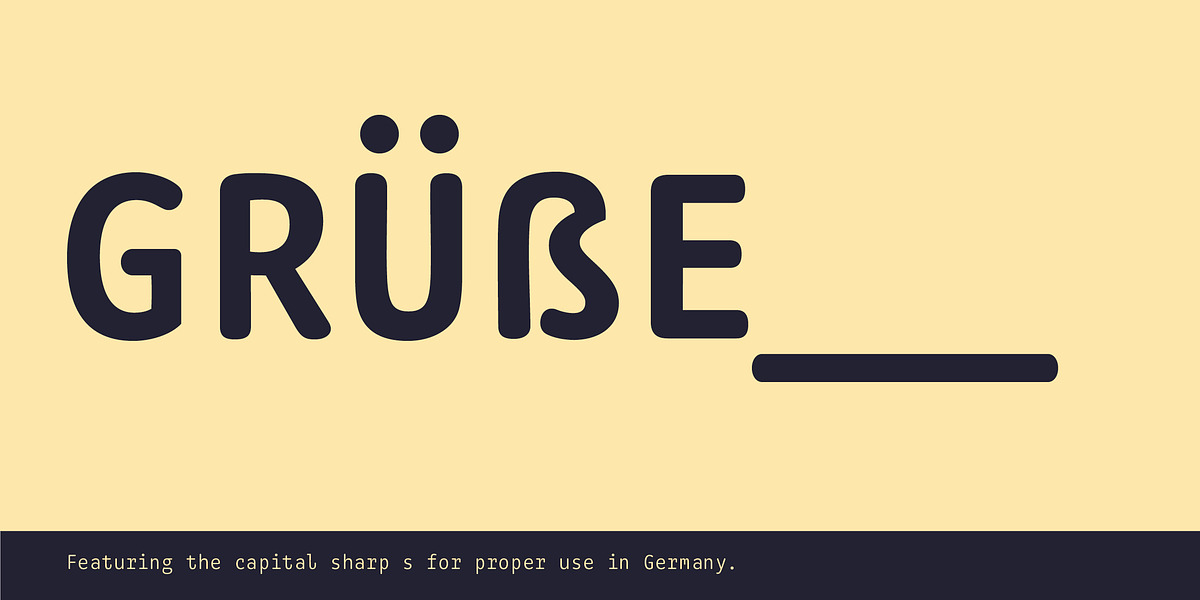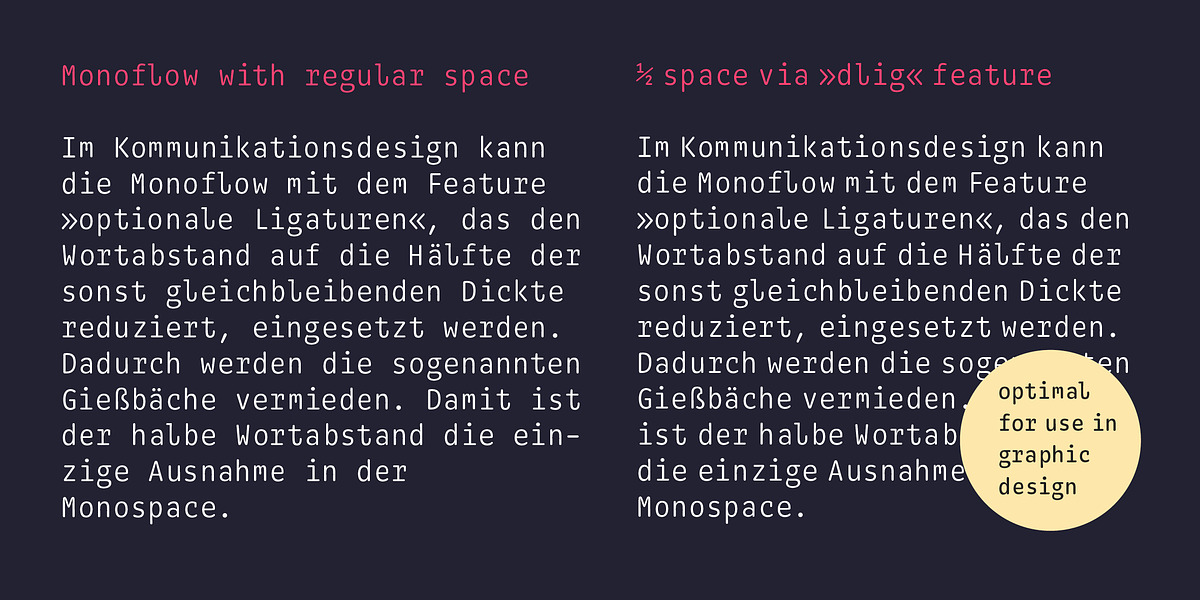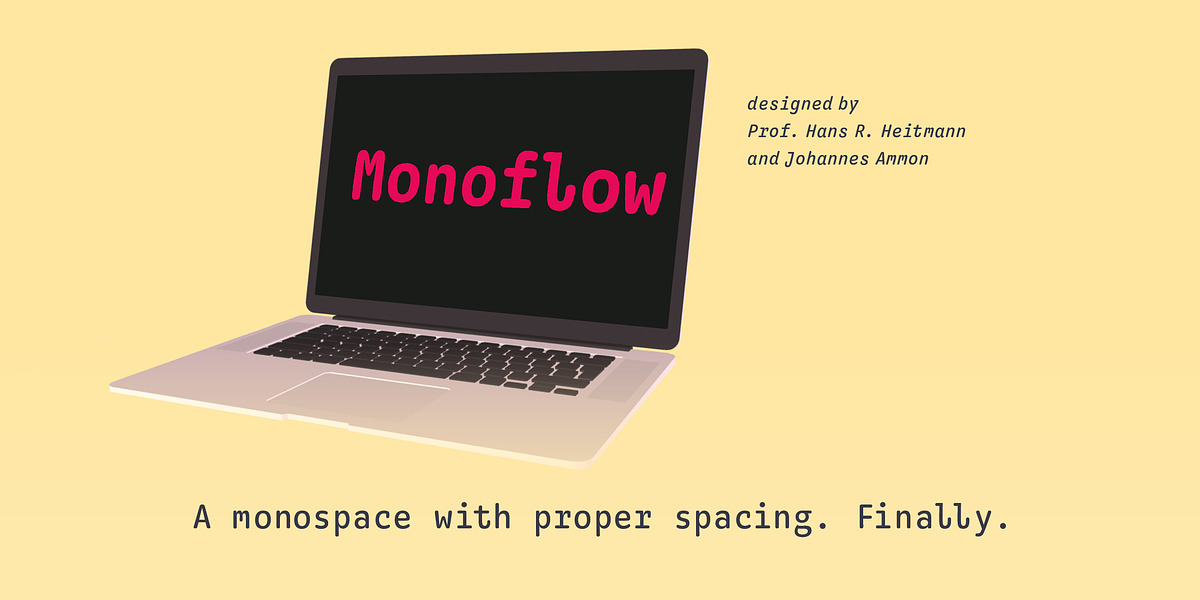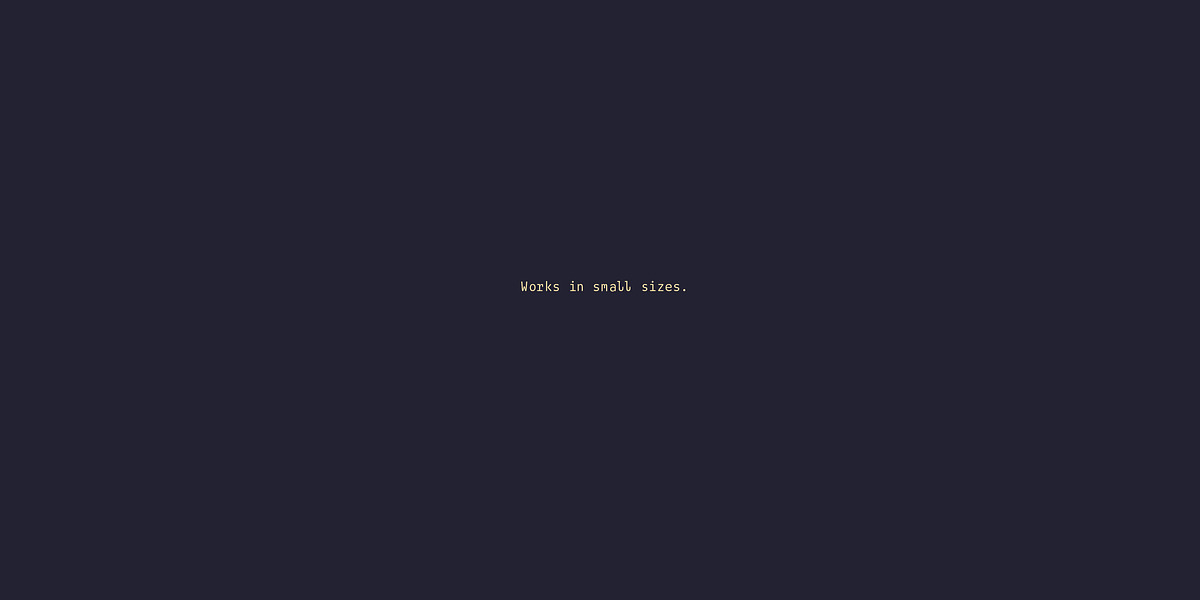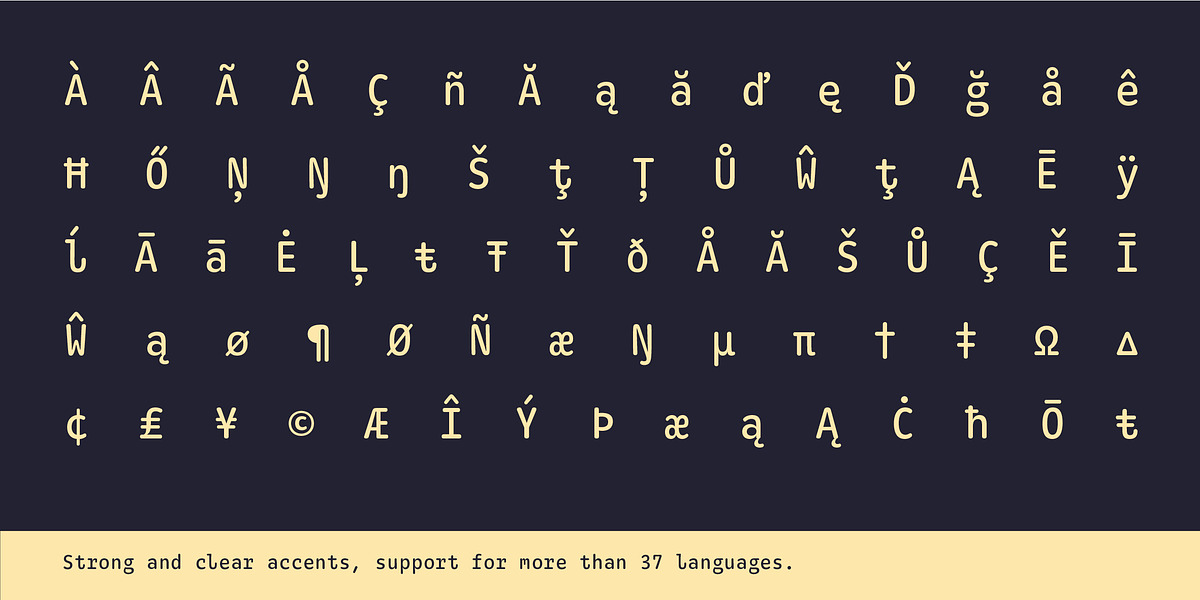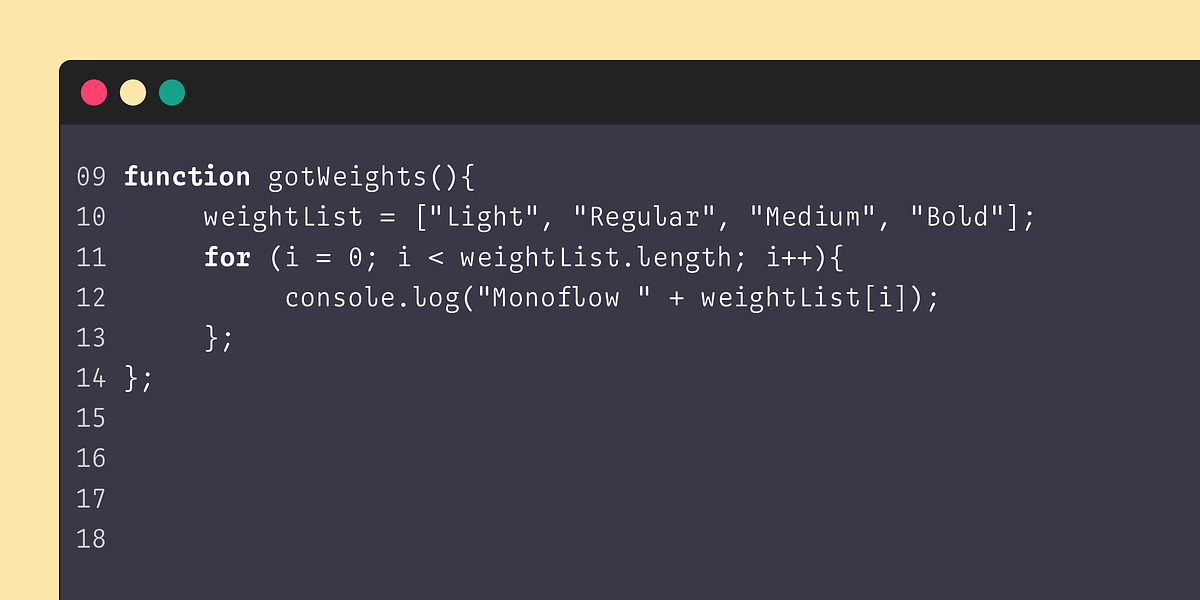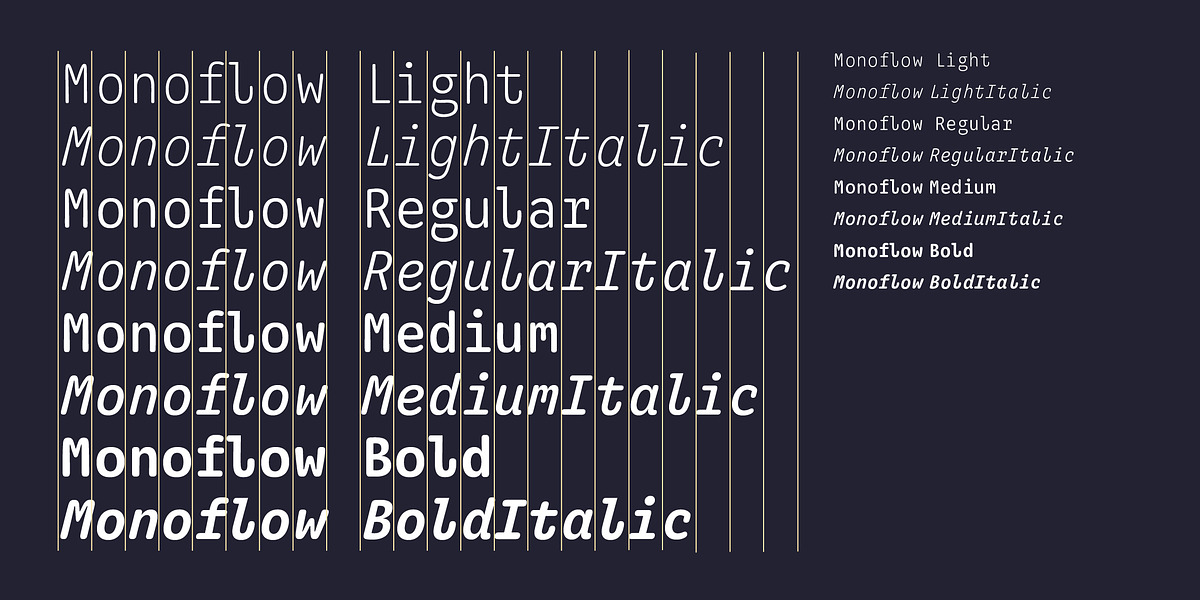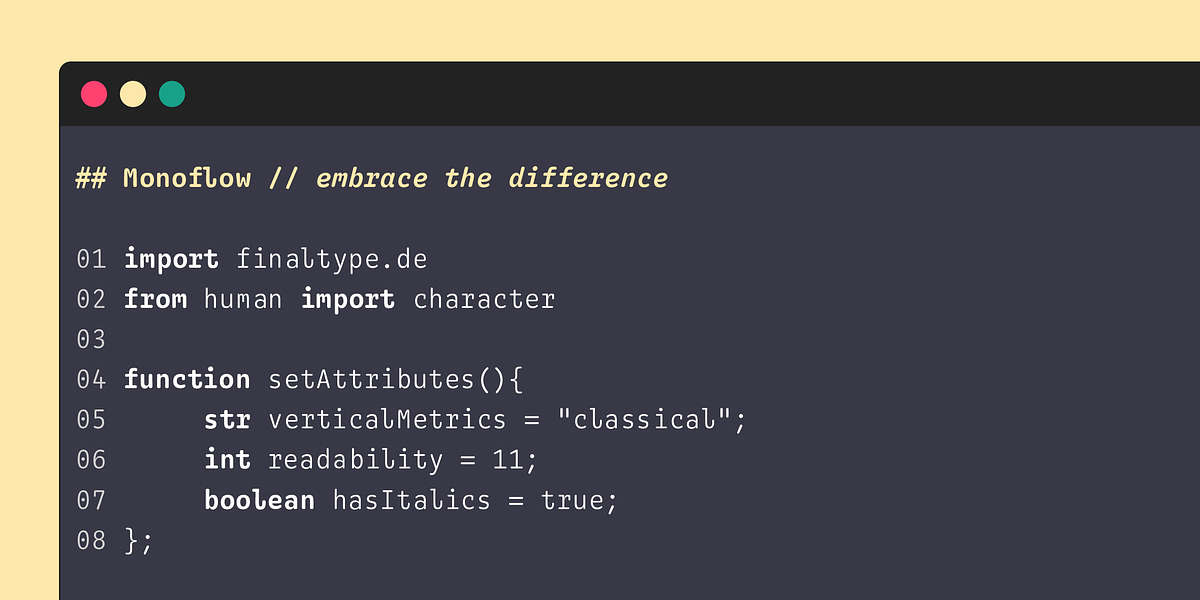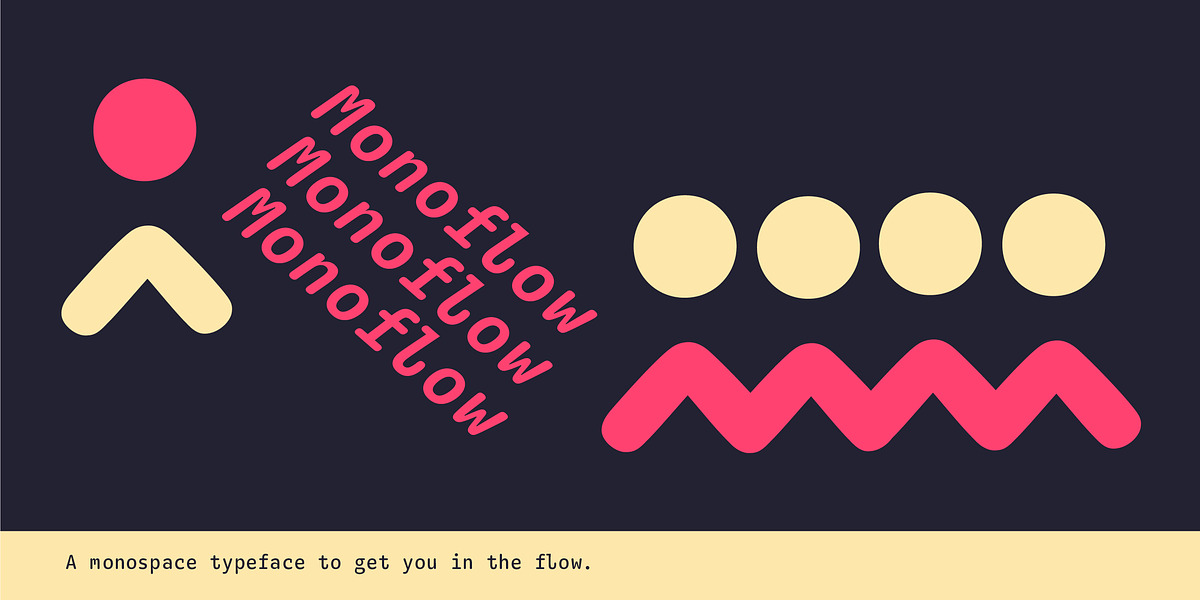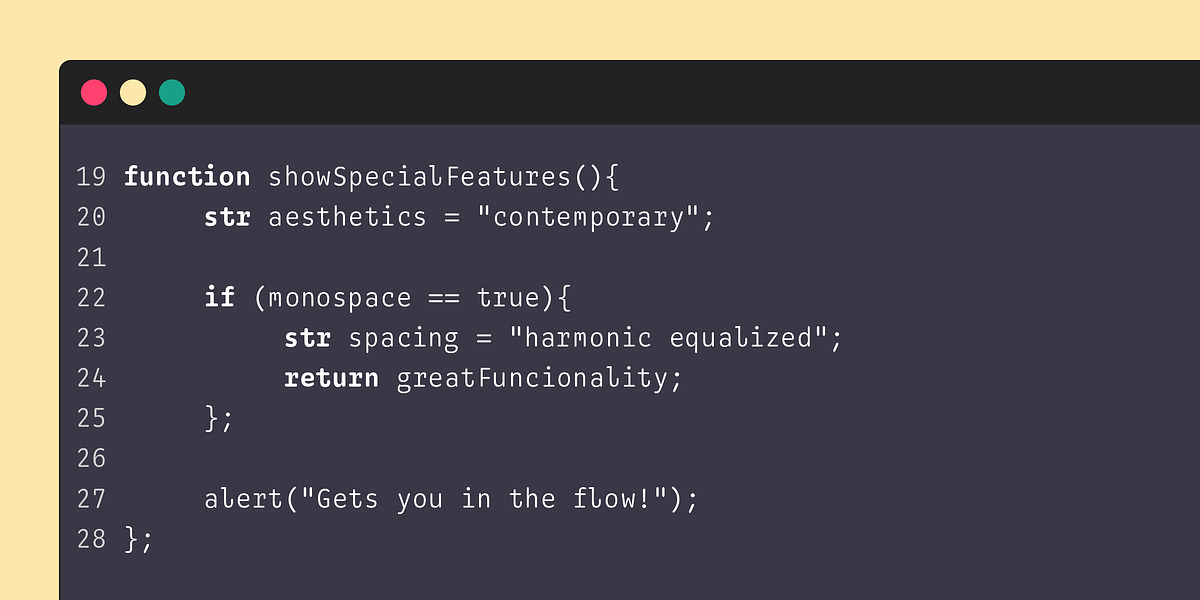
Monoflow
This grotesque sans serif font is designed with a monospace structure, making it suitable for coding and programming tasks. Its rounded features lend a modern and clean aesthetic, making it versatile enough for use in corporate branding and design materials.